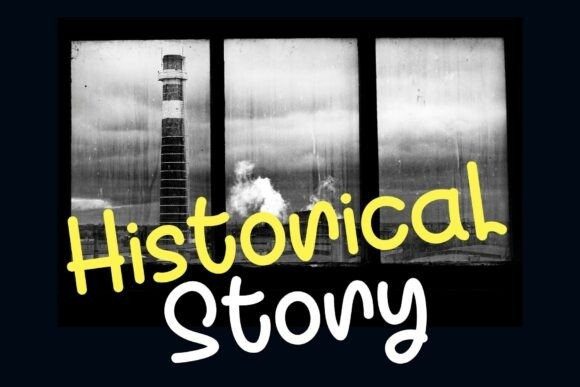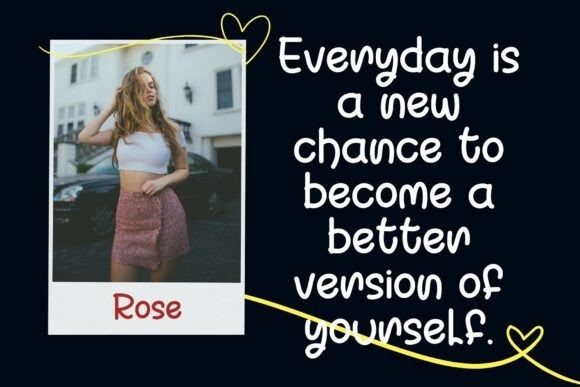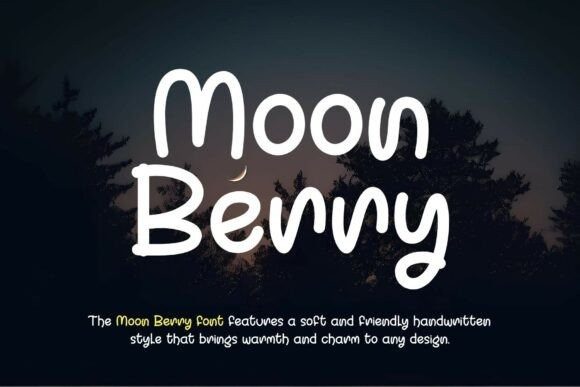
Moon Berry Handcrafted Font a soft and friendly handwritten style that brings warmth and charm to any design.This casual handwritten font blends rounded, bubbly letterforms with a playful, approachable character. Designed for high legibility and visual warmth, this font features smooth curves, consistent stroke weight, and generous spacing, making it ideal for children’s designs, branding, packaging, and social media content. Its monoline structure ensures clarity at smaller sizes, while the slightly exaggerated letter shapes add a touch of personality without compromising readability.
Moon Benny supports basic Latin characters and punctuation, and is crafted with clean vector outlines for sharp rendering across print and digital platforms. Its friendly style makes it perfect for projects that aim to convey softness, charm, and a human touch without being overly stylized.
With its smooth, rounded shapes and playful character, this font is perfect for creative project such as logos, product packaging, inspirational quotes, and social media designs. Its casual yet professional look makes it ideal for nature-themed, kids, or modern minimalist concepts.